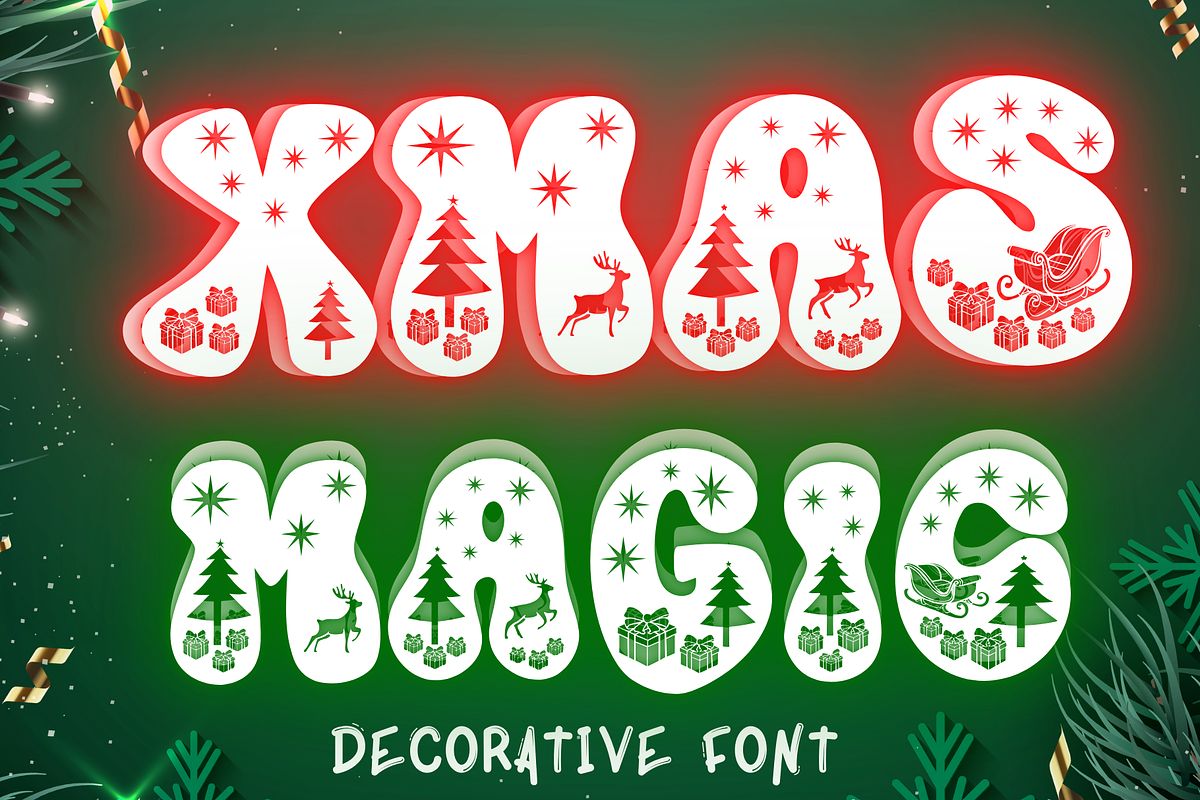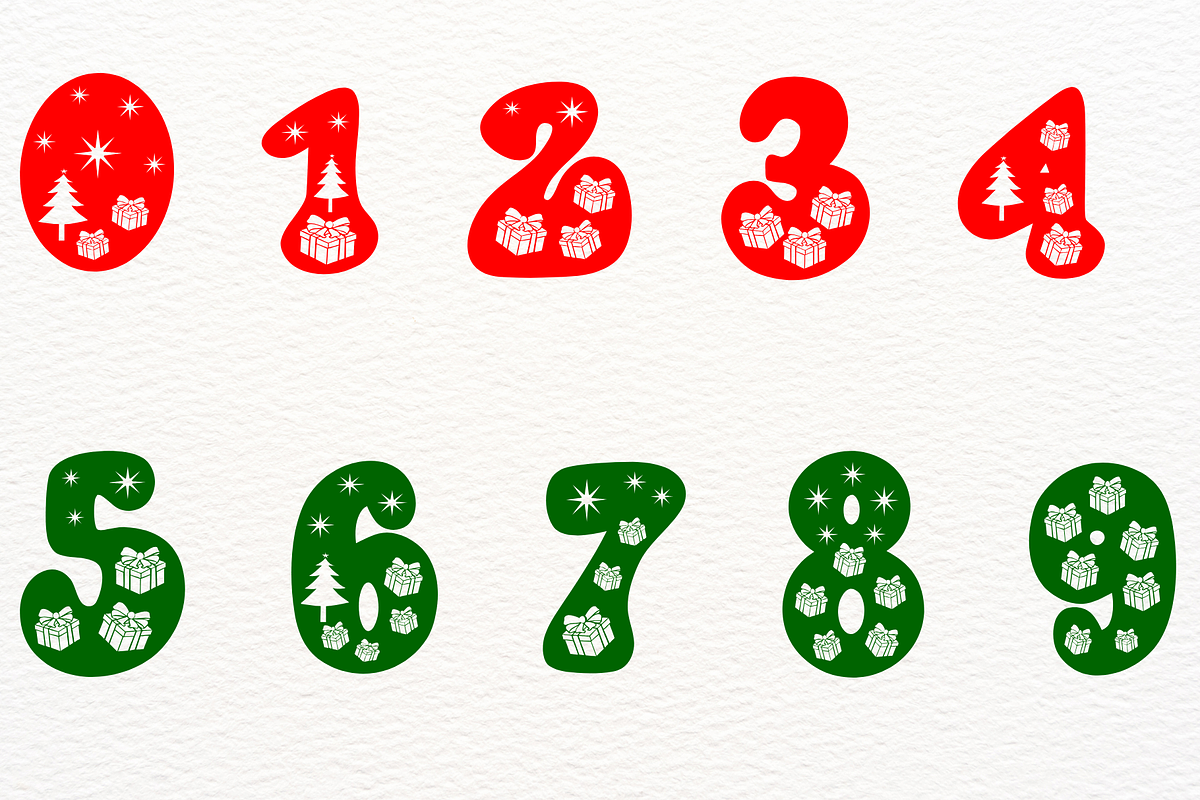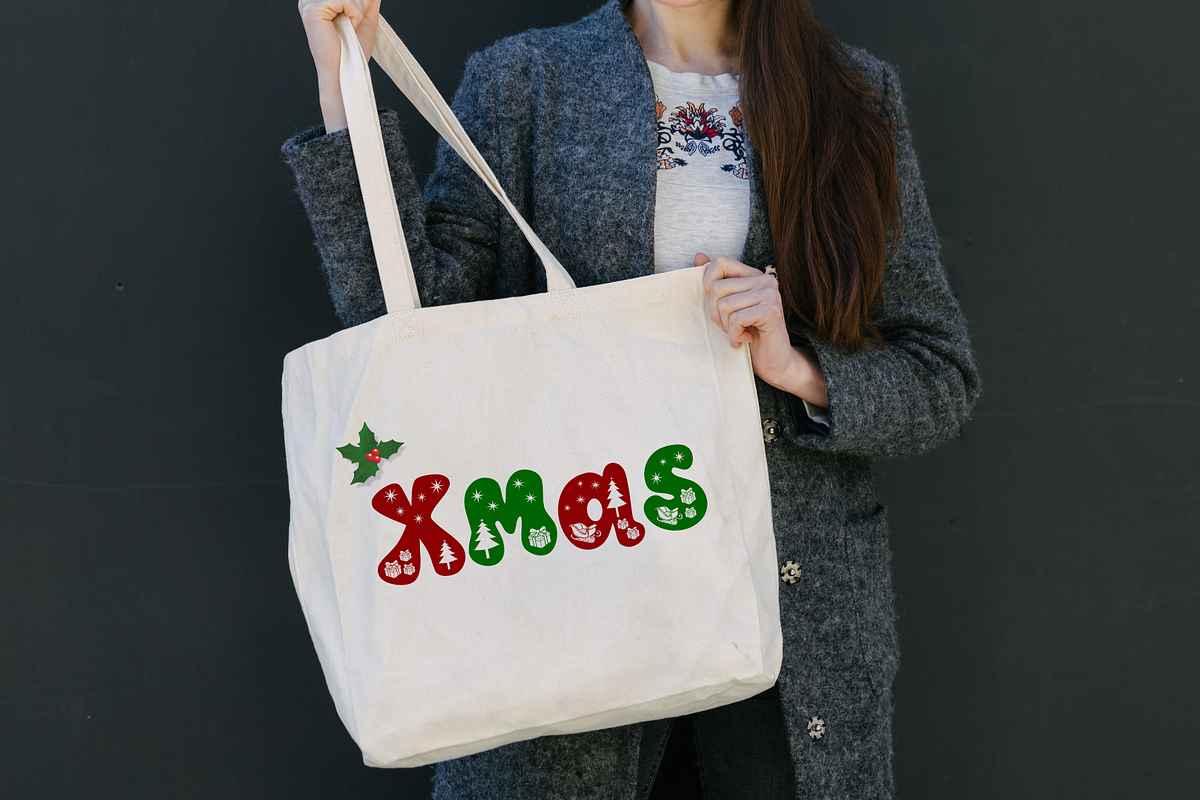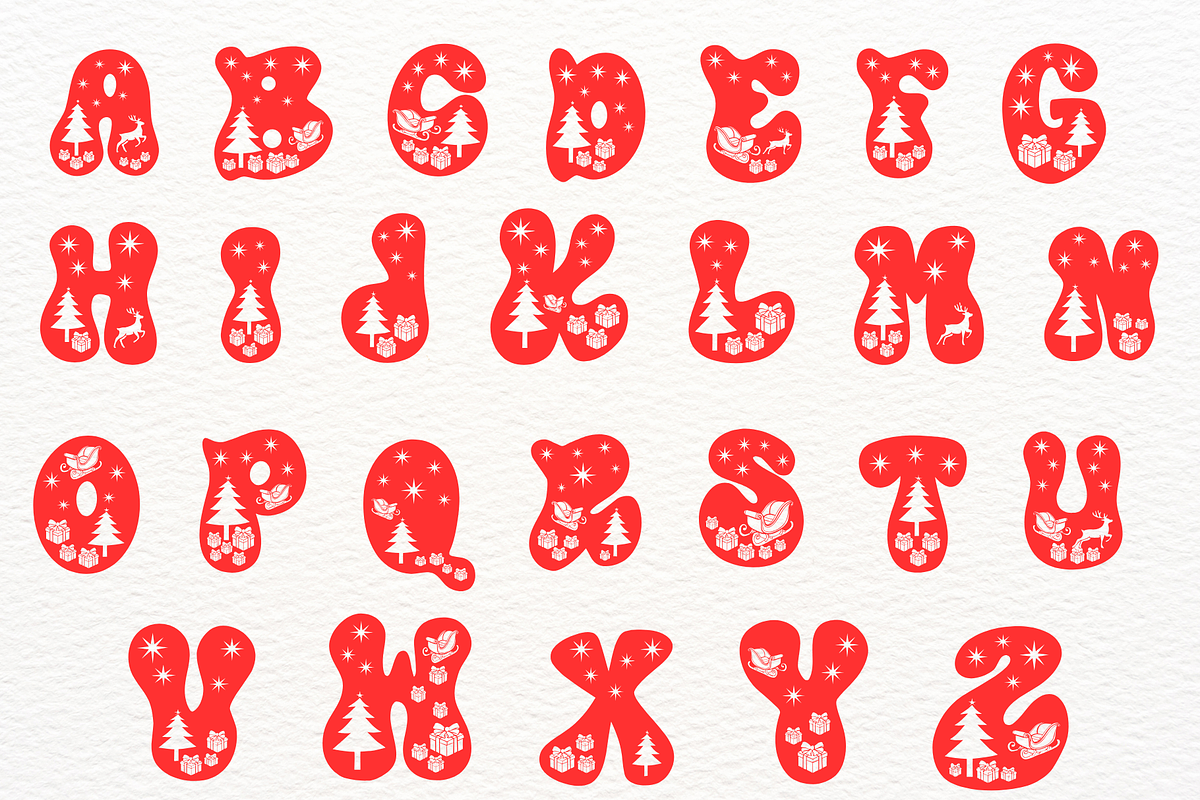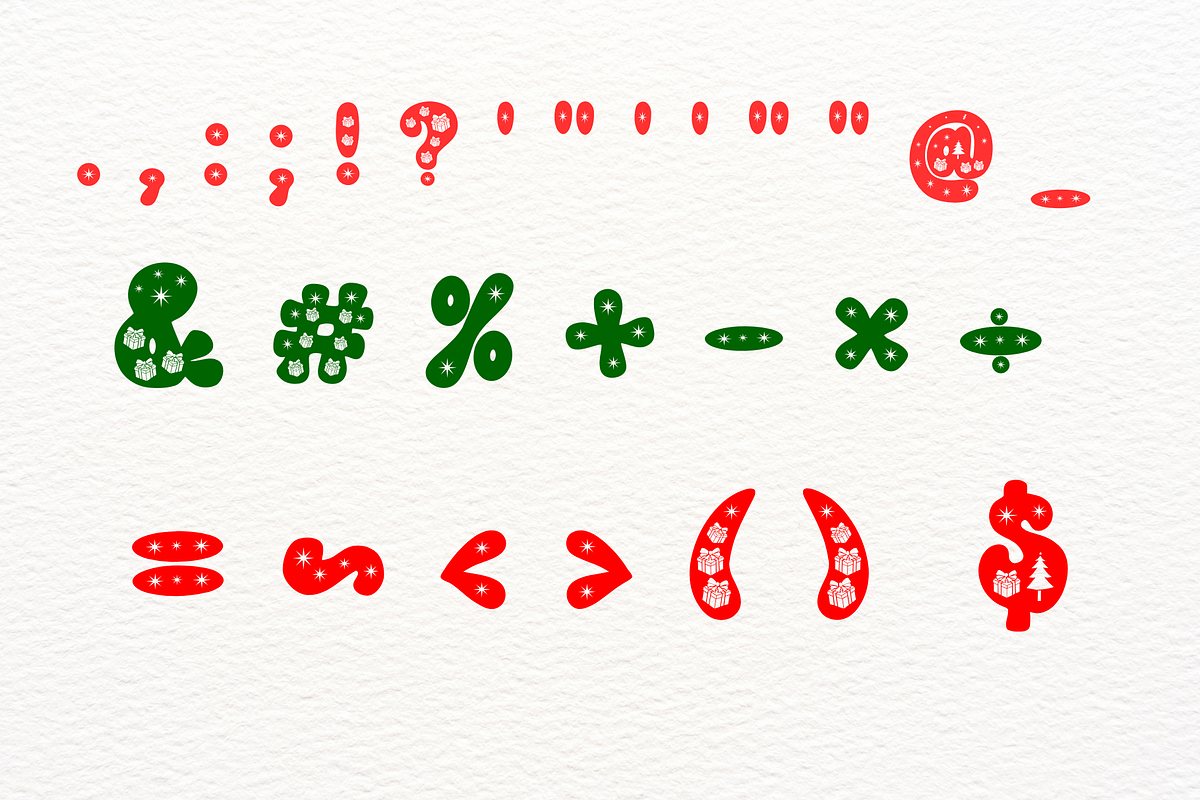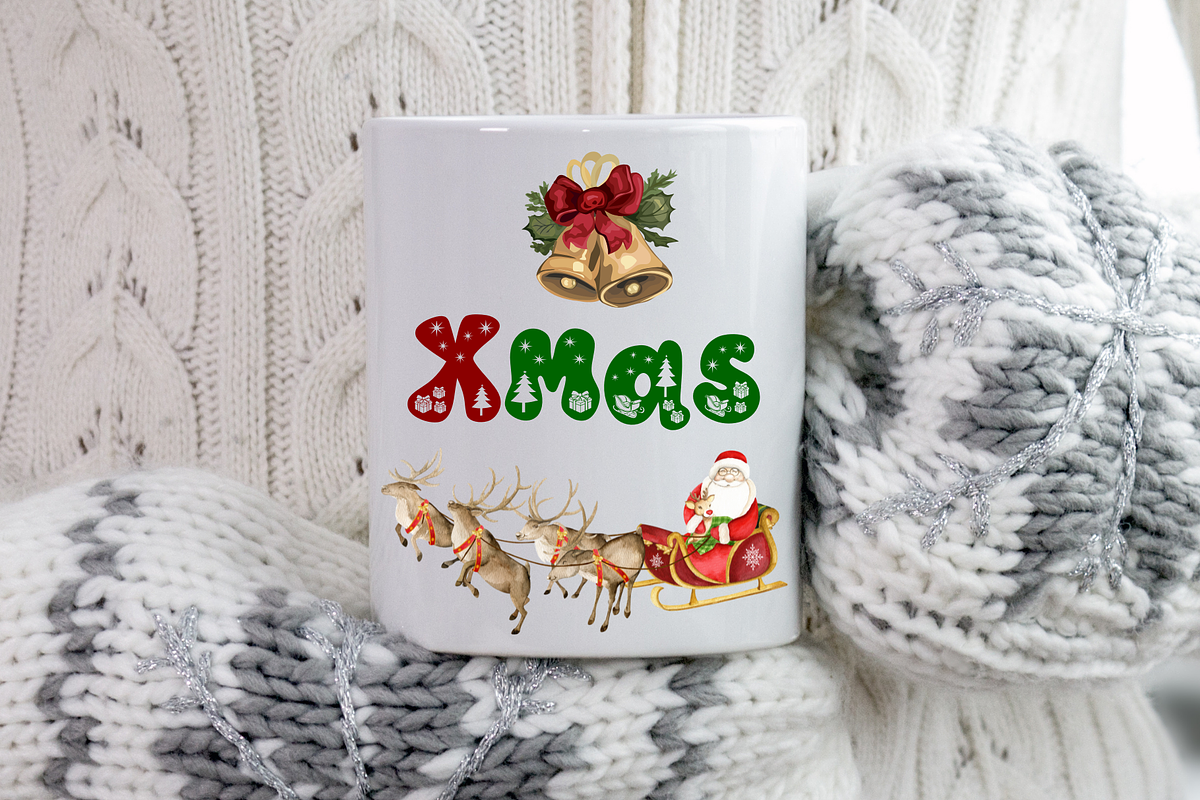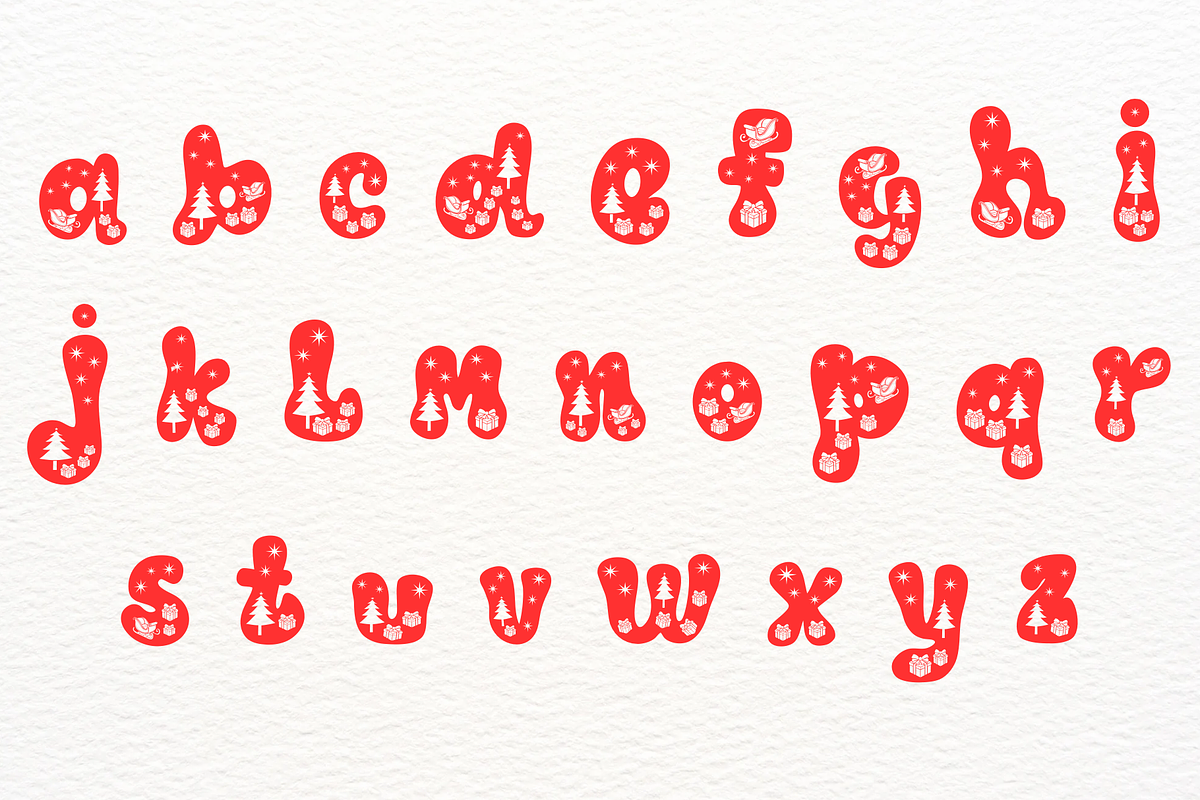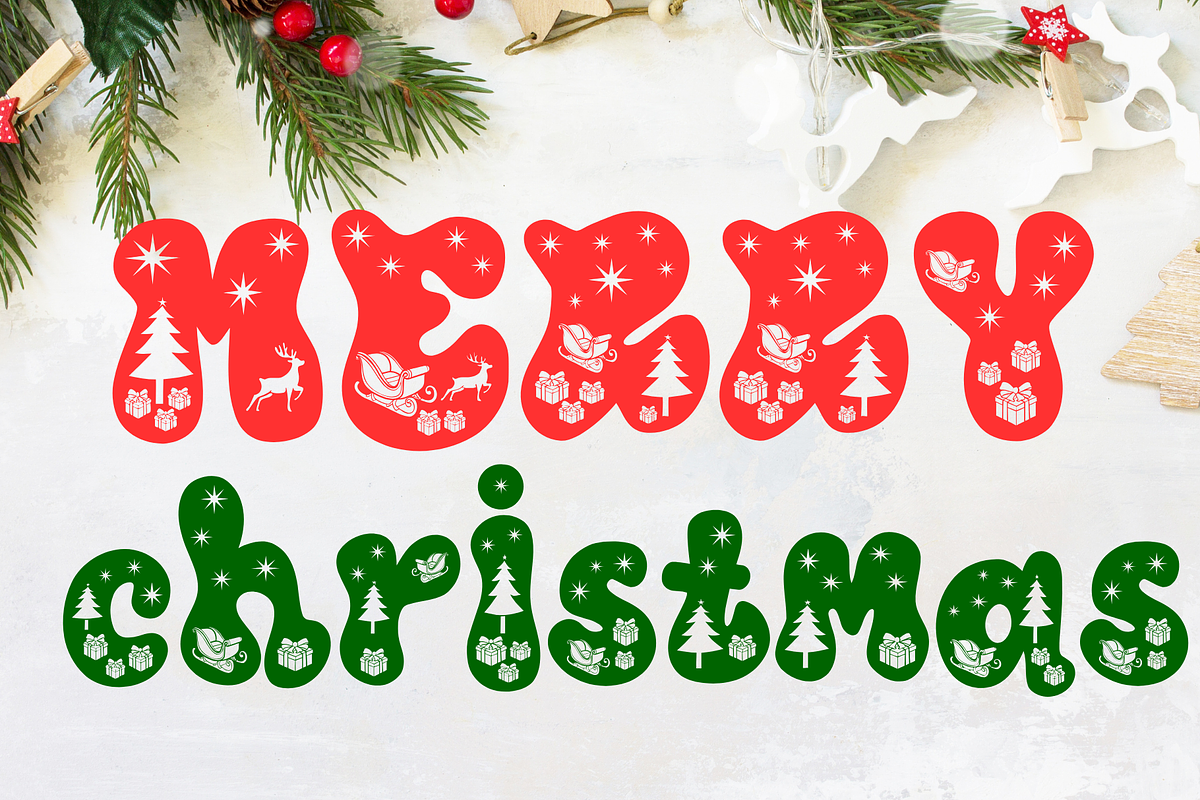
Xmas magic
Xmas magic is a symbols font with theme with a sketch style. This font can enhance your creative projects such as wedding invitations, DIY, crafts, decorations, logos, and many other creative ideas.